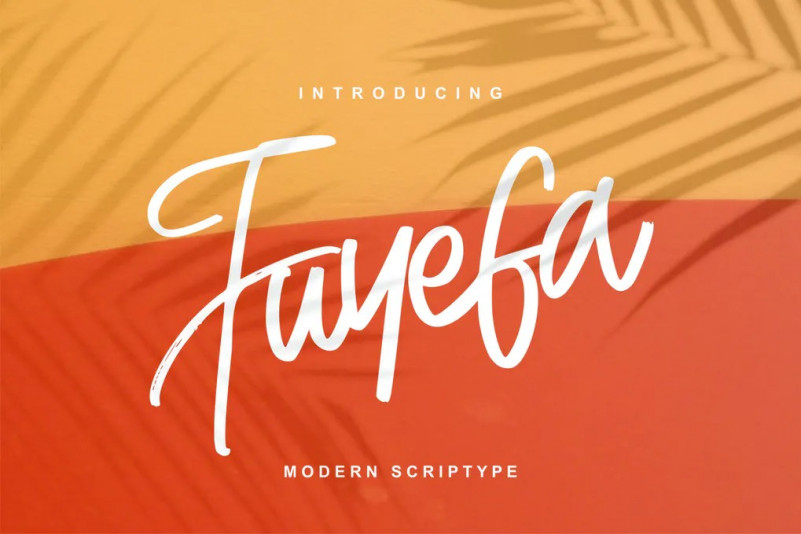
Fuyefa Font
**Fuyefa Modern Scriptype – is a new font that is authentic and suitable for many of your visual needs, like for invitation, greeting cards, branding materials, business cards, quotes, posters, and more!